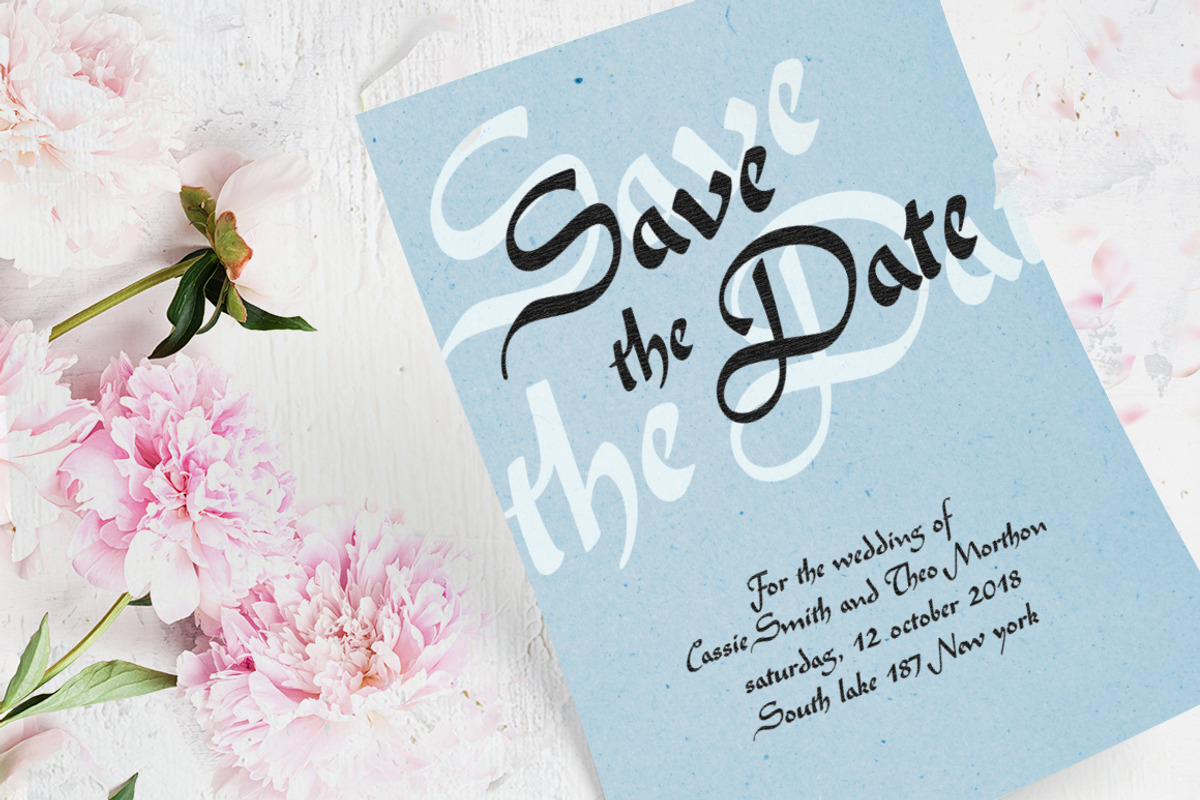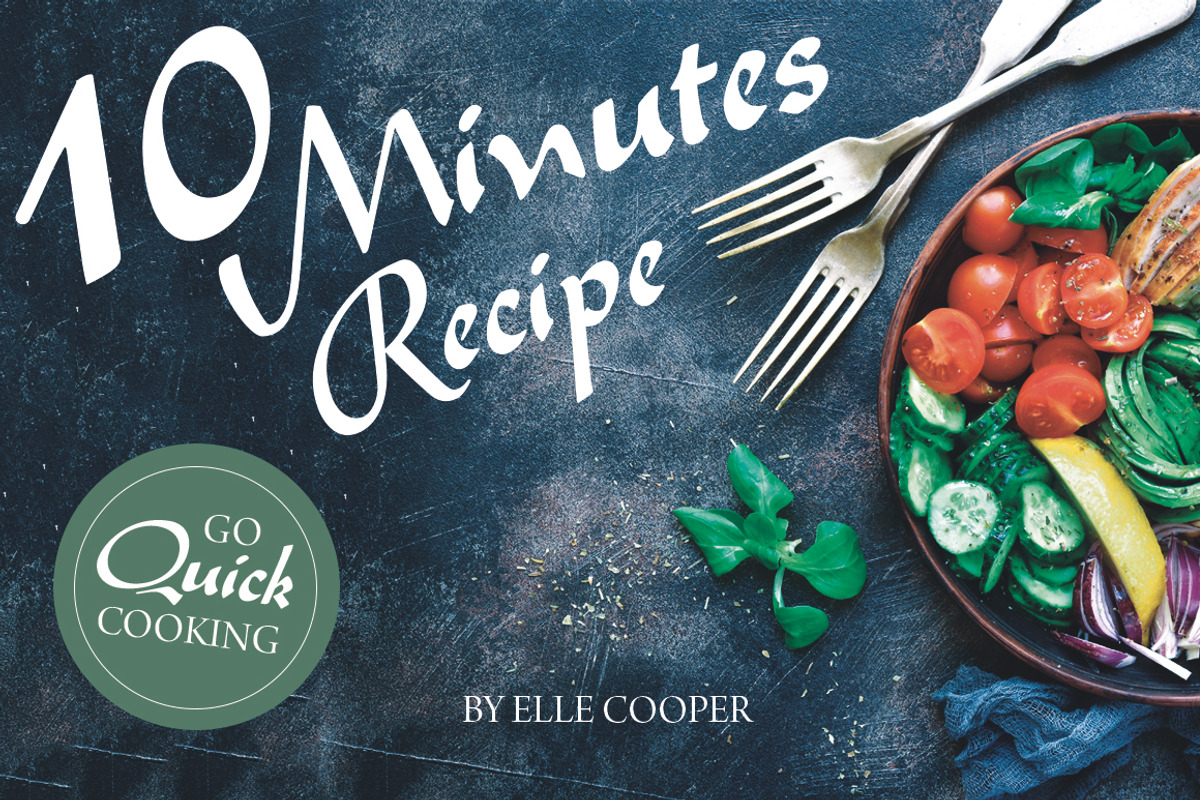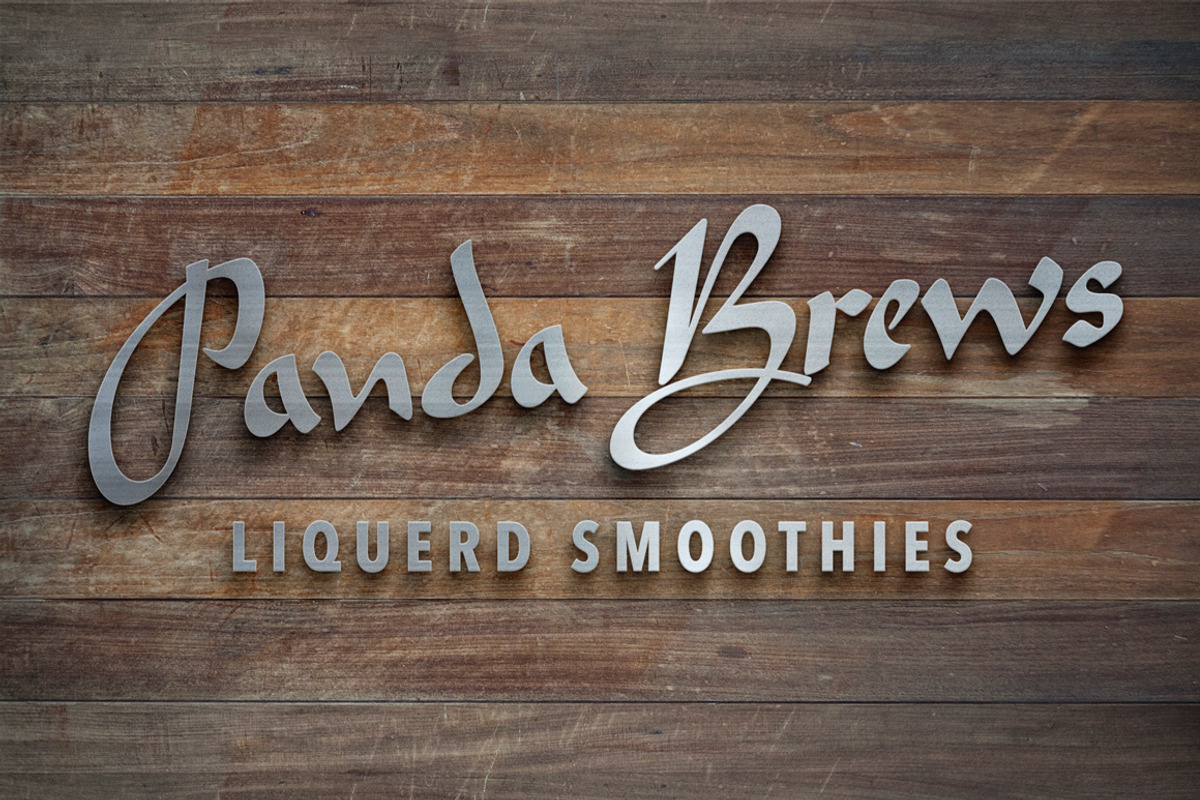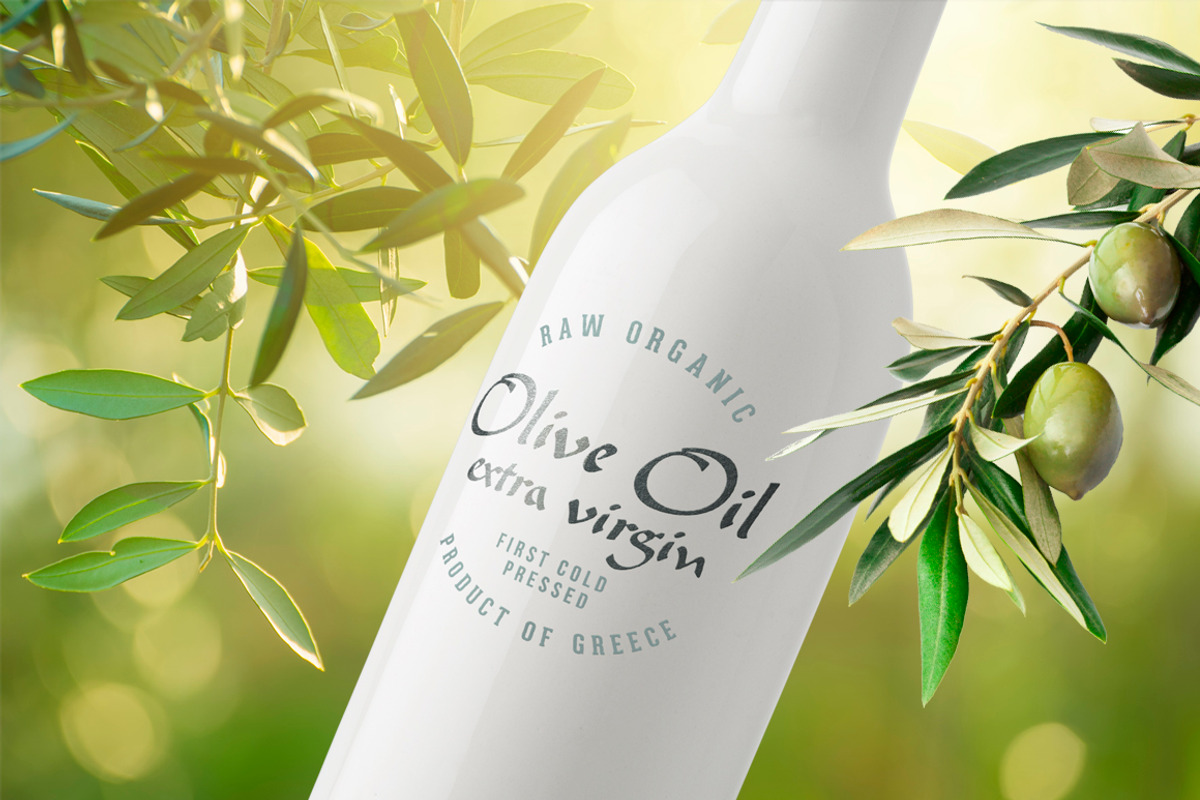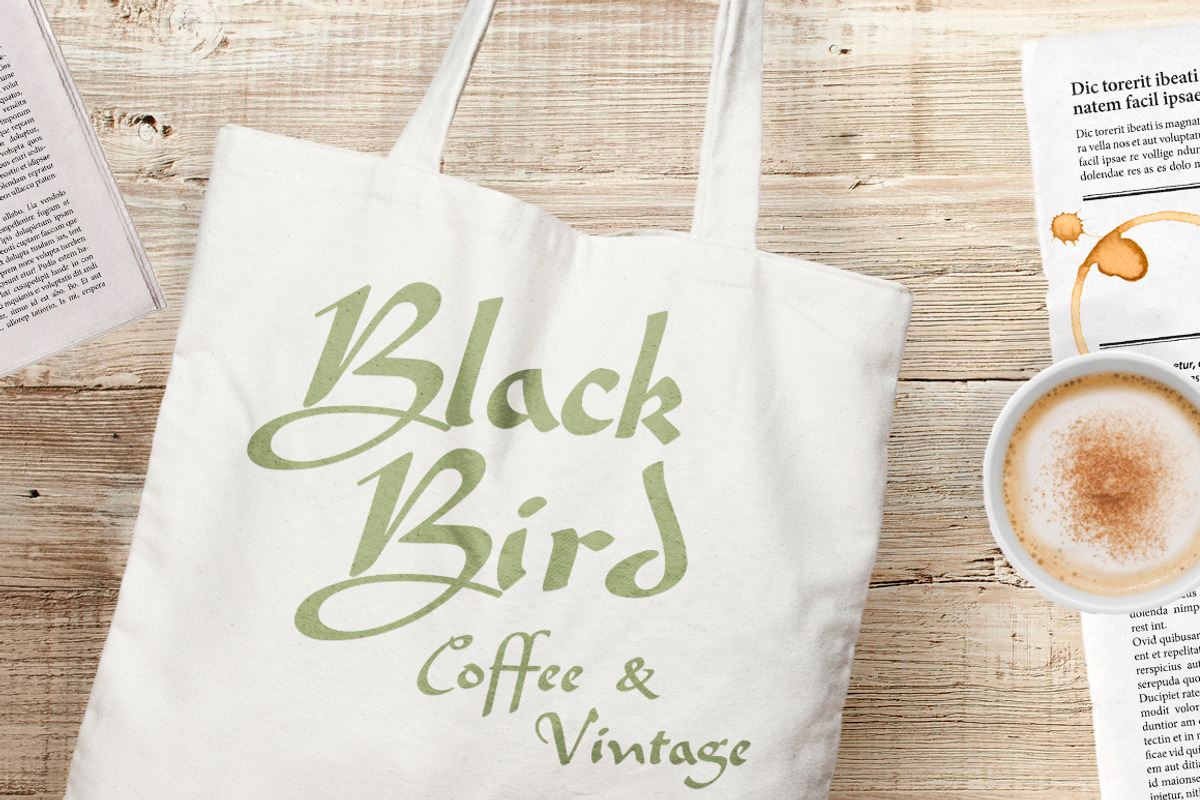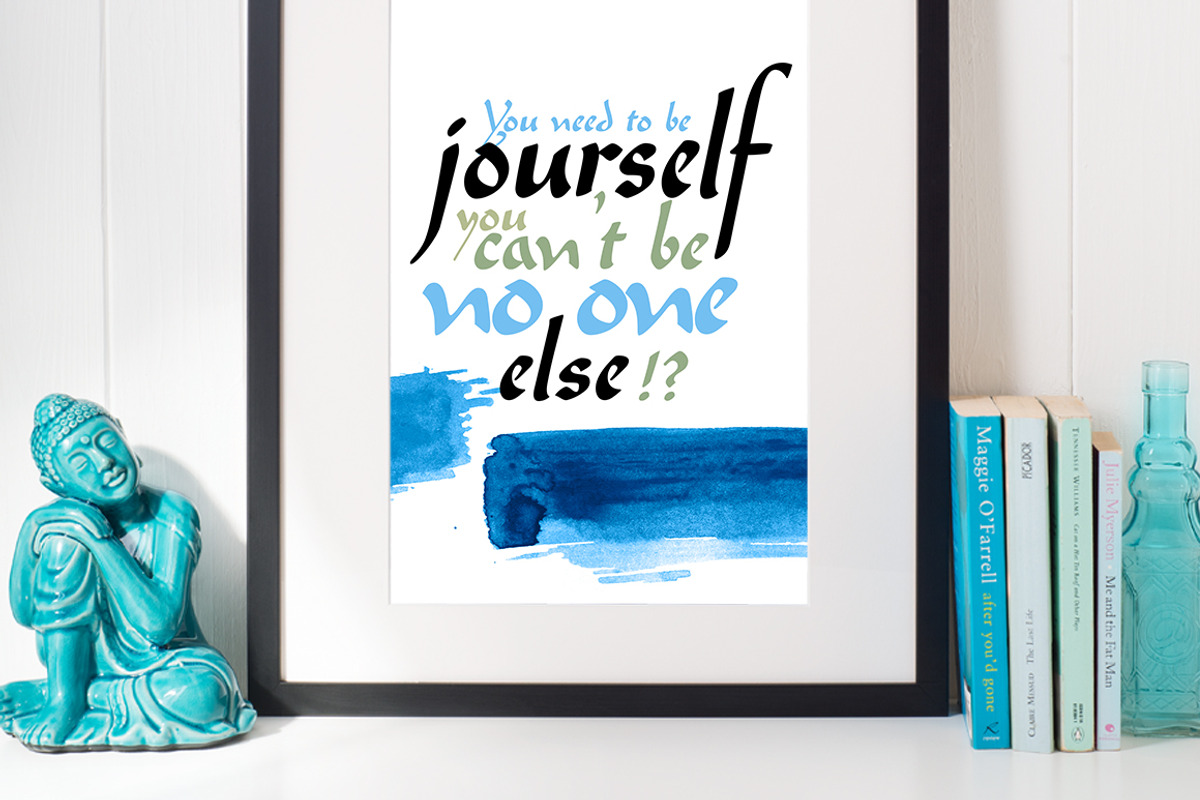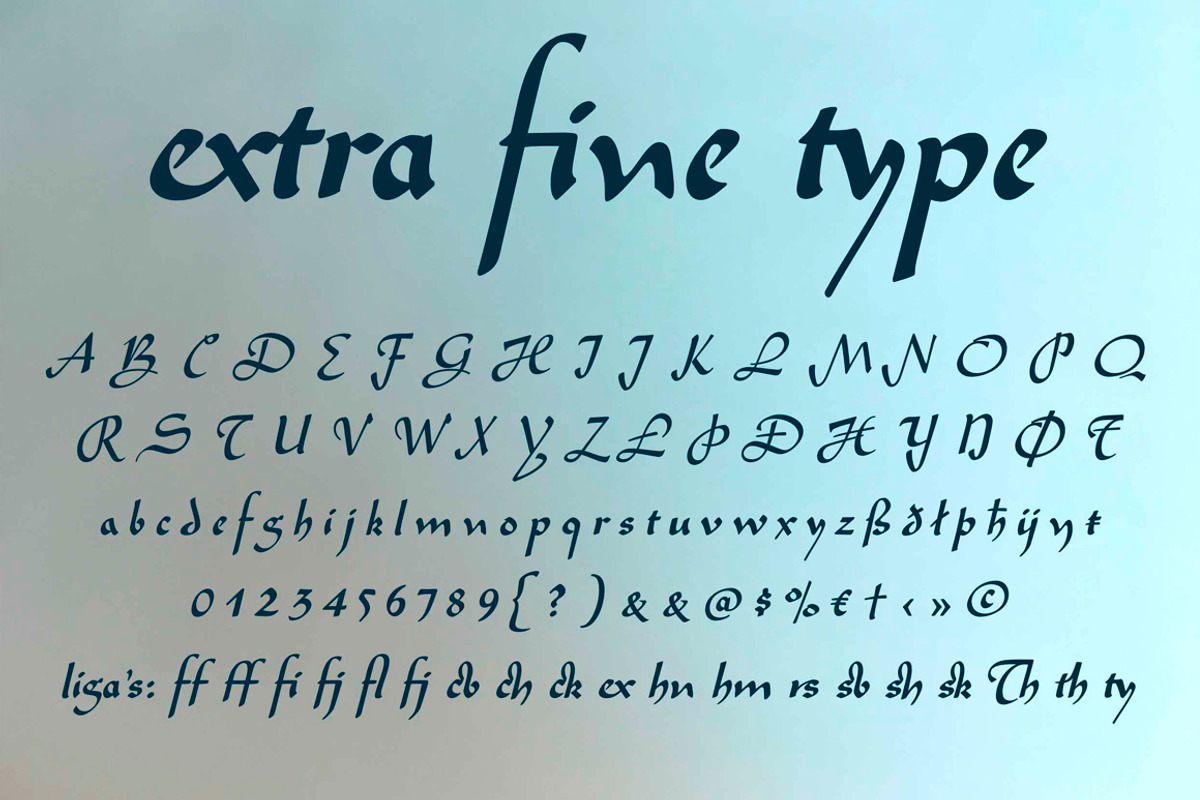
Amilly Script !! Now 40% off !! by TypeFaith Fonts is a font selected for branding, posters, packaging, typography.
- Amilly is a retro font that contains extra glyphs and ligatures, you can access them by using the OpenType feature.
- Amilly Script comes with upper and lowercase characters and supports international languages.
- Uppercase and lowercase
- Alternates
- International characters
- Punctuation and symbols
- Amilly Script Regular
Amilly Script !! Now 40% off !! by TypeFaith Fonts fits naturally into Branding, posters, packaging, typography.